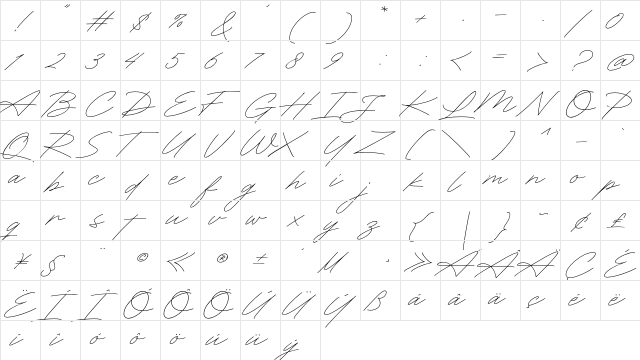
Righthand Signature Regular
Design Context for Righthand Signature Typeface
Righthand Signature brings a calligraphic fluidity to the page — its connecting strokes and expressive curves give it an unmistakably human quality.
Font Pairing: Combine Righthand Signature with a simple geometric sans for maximum contrast — the tension between flowing curves and clean structure is a classic typographic pairing.
Pro Tip: Use Righthand Signature for short runs of text — names, titles, or taglines. Extended body copy in script faces tires the eye quickly.